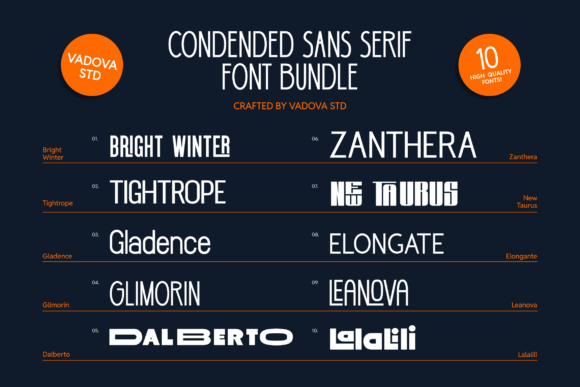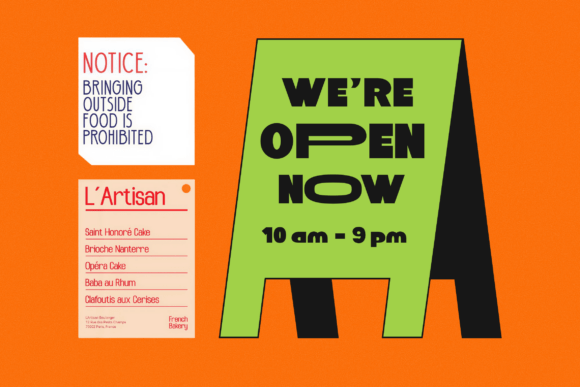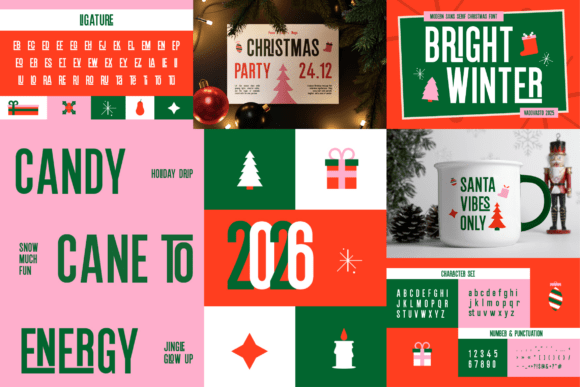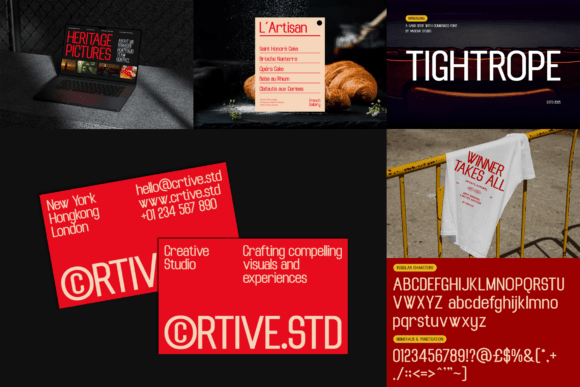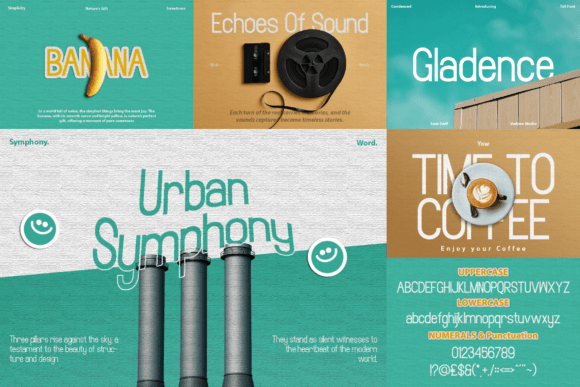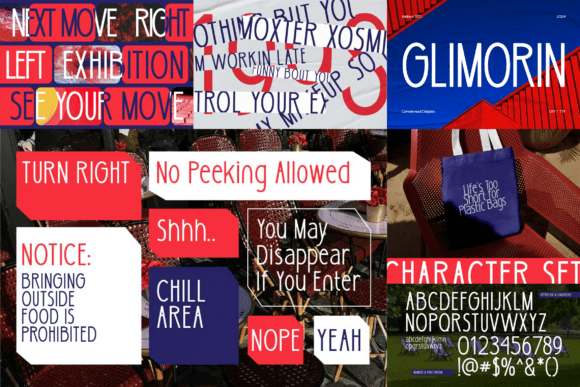
Unlock the Power of Condensed Sans Serif Fonts in Your Designs
In the world of typography, the right font can make all the difference in the impact and effectiveness of your design. For designers and crafters looking to create bold, modern, and space-efficient typography, a Condensed Sans Serif Font is an invaluable asset. In this article, we’ll explore the benefits and versatility of condensed sans serif fonts, and introduce you to the Condensed Sans Serif Font Bundle, a powerful collection of modern typefaces designed to elevate your designs.
The Benefits of Condensed Sans Serif Fonts
Condensed sans serif fonts are characterized by their tall proportions and strong geometric structures, making them perfect for use in a variety of design applications. Some of the key benefits of using condensed sans serif fonts include:
- Space Efficiency: Condensed sans serif fonts are designed to be compact, making them ideal for use in layouts where space is limited. They allow you to convey your message clearly and concisely, without sacrificing visual impact.
- Modern Aesthetic: The clean lines and geometric shapes of condensed sans serif fonts give them a distinctly modern look, perfect for designers looking to create contemporary and professional designs.
- Readability: Despite their condensed nature, these fonts are crafted for display use, offering excellent readability even at smaller sizes. This makes them perfect for use in headlines, titles, and other display text.
- Versatility: Condensed sans serif fonts can be used in a wide range of design applications, from print materials like posters and brochures, to digital layouts like websites and social media graphics.
Introducing the Condensed Sans Serif Font Bundle
The Condensed Sans Serif Font Bundle is a carefully curated collection of modern typefaces designed to meet the needs of designers and crafters. This bundle features a range of condensed sans serif fonts, each crafted for display use and optimized for maximum visual impact.
With the Condensed Sans Serif Font Bundle, you’ll get access to a versatile and powerful typographic solution that’s perfect for a wide range of design applications, including:
- Headlines and Titles: Use these fonts to create bold and attention-grabbing headlines that draw your audience in.
- Posters and Flyers: The condensed sans serif fonts in this bundle are perfect for creating eye-catching posters and flyers that stand out.
- Branding and Packaging: Use these fonts to create a strong brand identity and add a touch of modern sophistication to your packaging designs.
- Editorial Layouts: The fonts in this bundle are ideal for use in editorial layouts, such as magazines, newspapers, and books.
- Advertising: Whether you’re creating print ads or digital ads, the Condensed Sans Serif Font Bundle has got you covered.
What to Expect from the Condensed Sans Serif Font Bundle
- High-Quality Fonts: Each font in the bundle is crafted with precision and attention to detail, ensuring a high level of quality and consistency.
In conclusion, the Condensed Sans Serif Font Bundle is a powerful and versatile typographic solution that’s perfect for designers and crafters looking to create modern, professional, and visually striking designs. With its range of condensed sans serif fonts, this bundle offers a space-efficient and high-impact way to elevate your designs and take your typography to the next level.